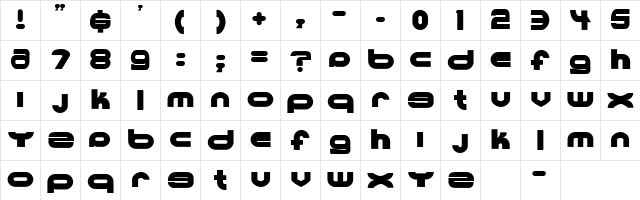
Ultraworld black Free Font
Ultraworld black
Style: black
Design Context for Ultraworld
Ultraworld is a composed and adaptable typeface that performs quietly and consistently across a wide range of design contexts.